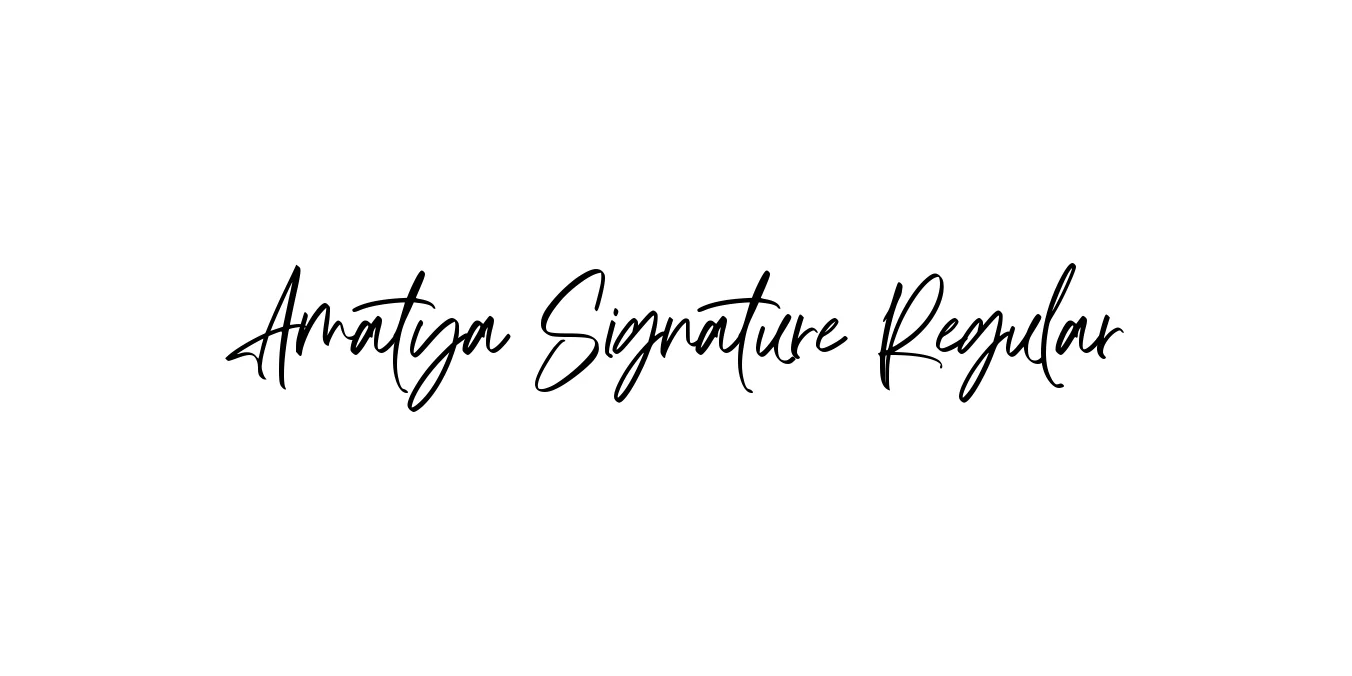
Amatya Signature Regular
Designed by Zulhelman
| Font Name | Amatya Signature |
| Designer | Zulhelman |
Amatya Signature Regular is a sophisticated and elegant script font designed to emulate the natural flow of human handwriting. It features fluid, expressive strokes that convey a sense of personal touch and high-end aesthetic, making it an ideal choice for branding projects that require a unique and premium identity. The font's delicate weight and balanced curves provide a professional yet approachable feel.
This typeface incorporates a variety of ligatures and stylistic alternates, allowing designers to create realistic signature-style layouts with ease. Its versatility extends from luxury fashion labels to personalized wedding invitations and digital watermarks. Amatya Signature Regular bridges the gap between traditional calligraphy and modern digital design, providing a timeless appeal to any creative endeavor.
Amatya Signature Regular Best Uses
Creating unique and personalized corporate identities for luxury brands.
Adding a touch of elegance and personal flair to invitations and place cards.
Perfect for professional watermarks and stylish photo credits.
Crafting aesthetic quotes and high-end lifestyle post layouts.